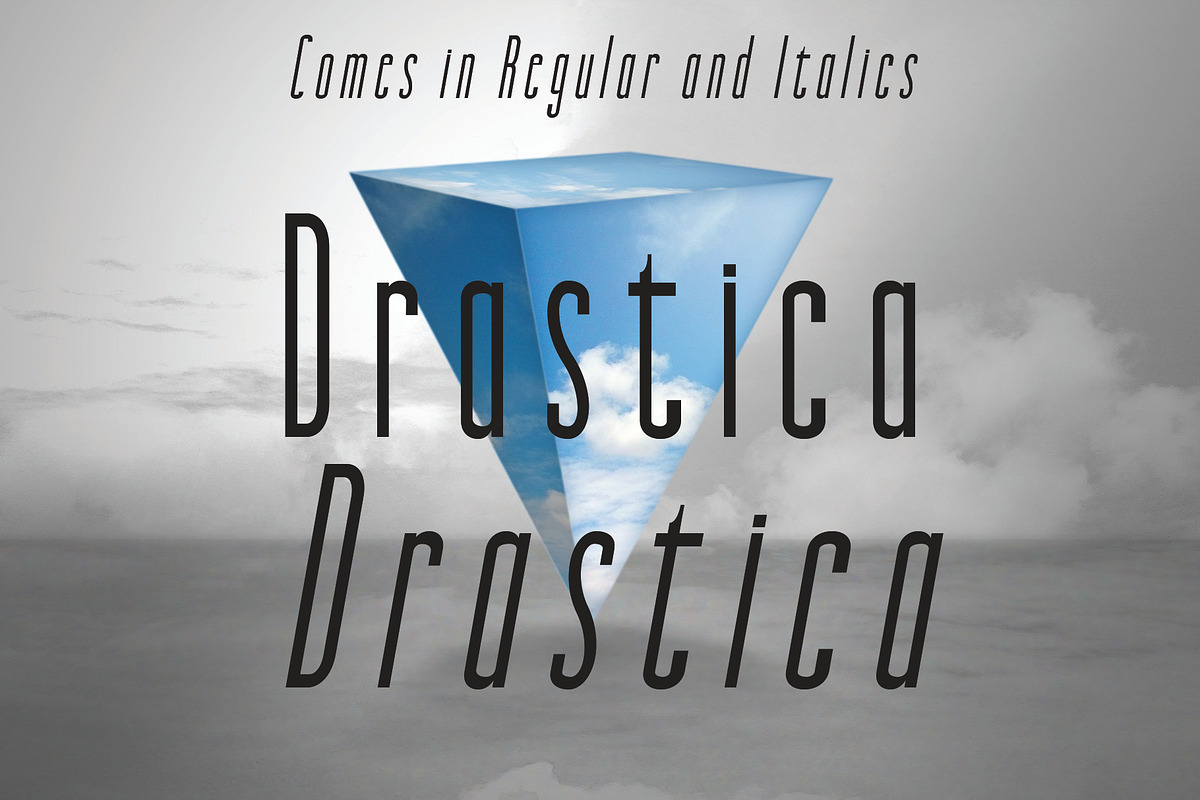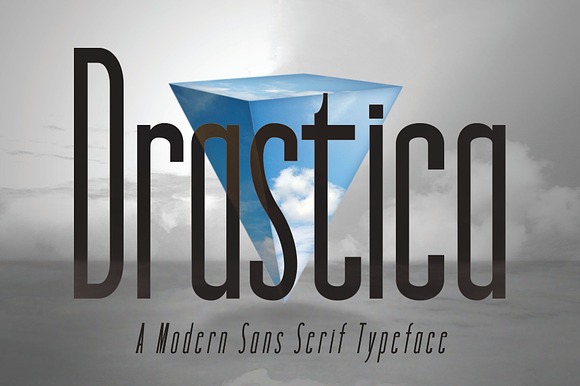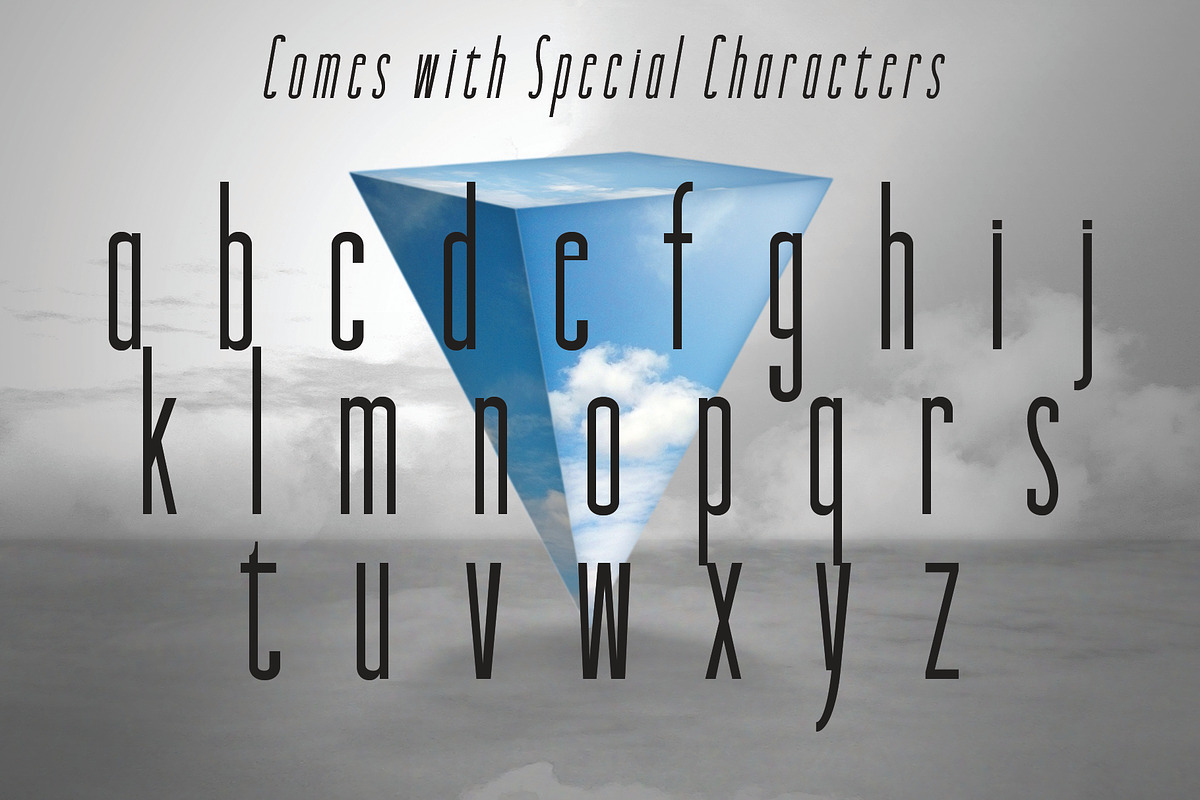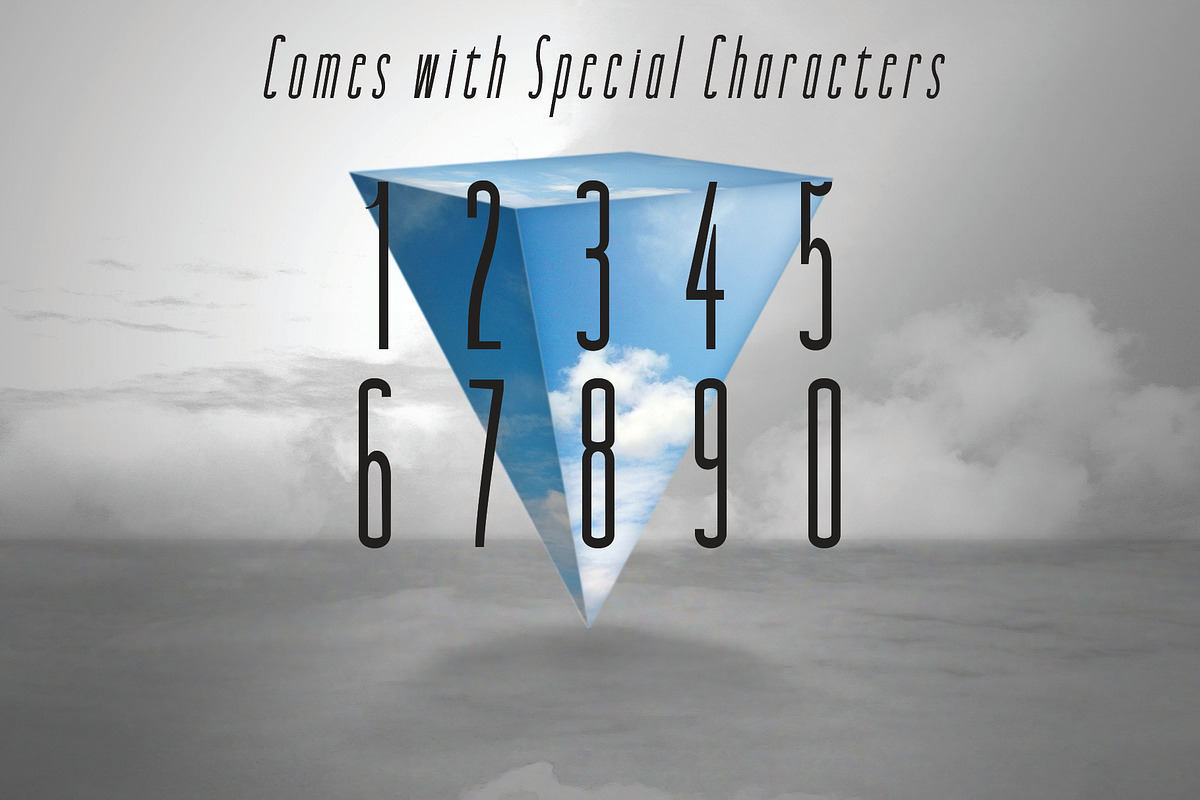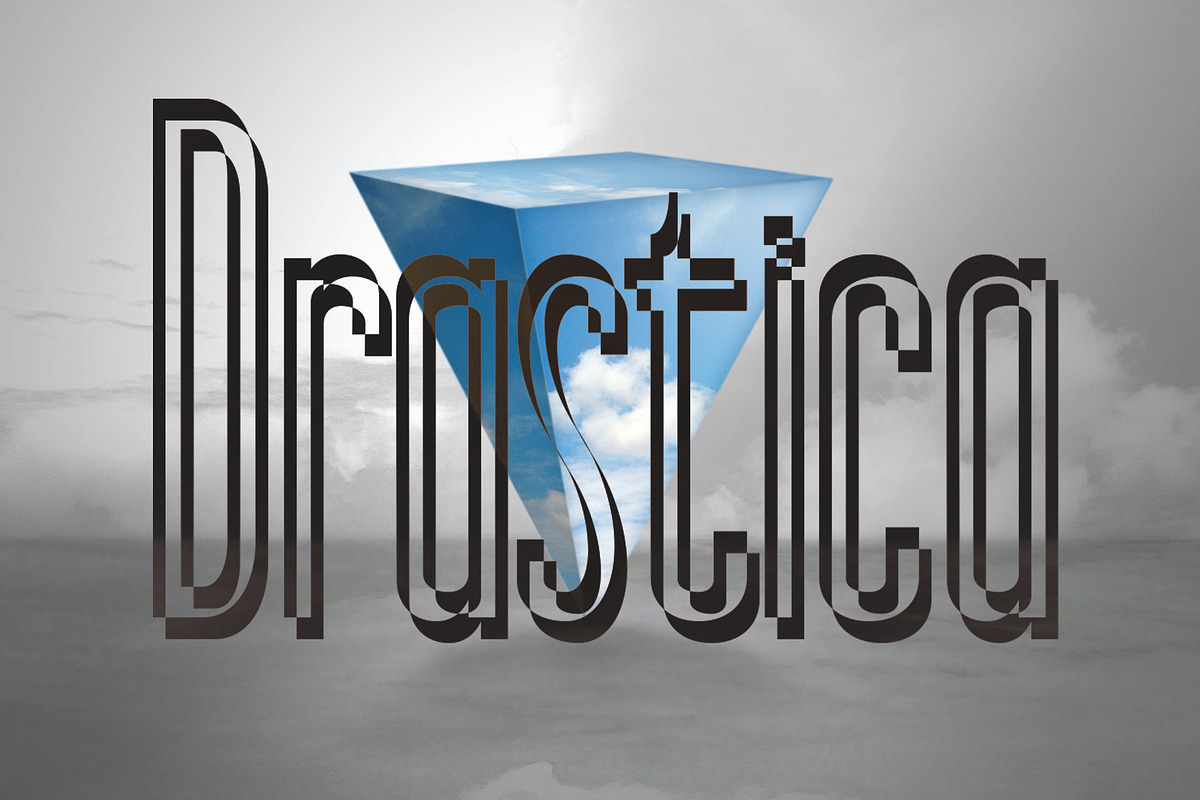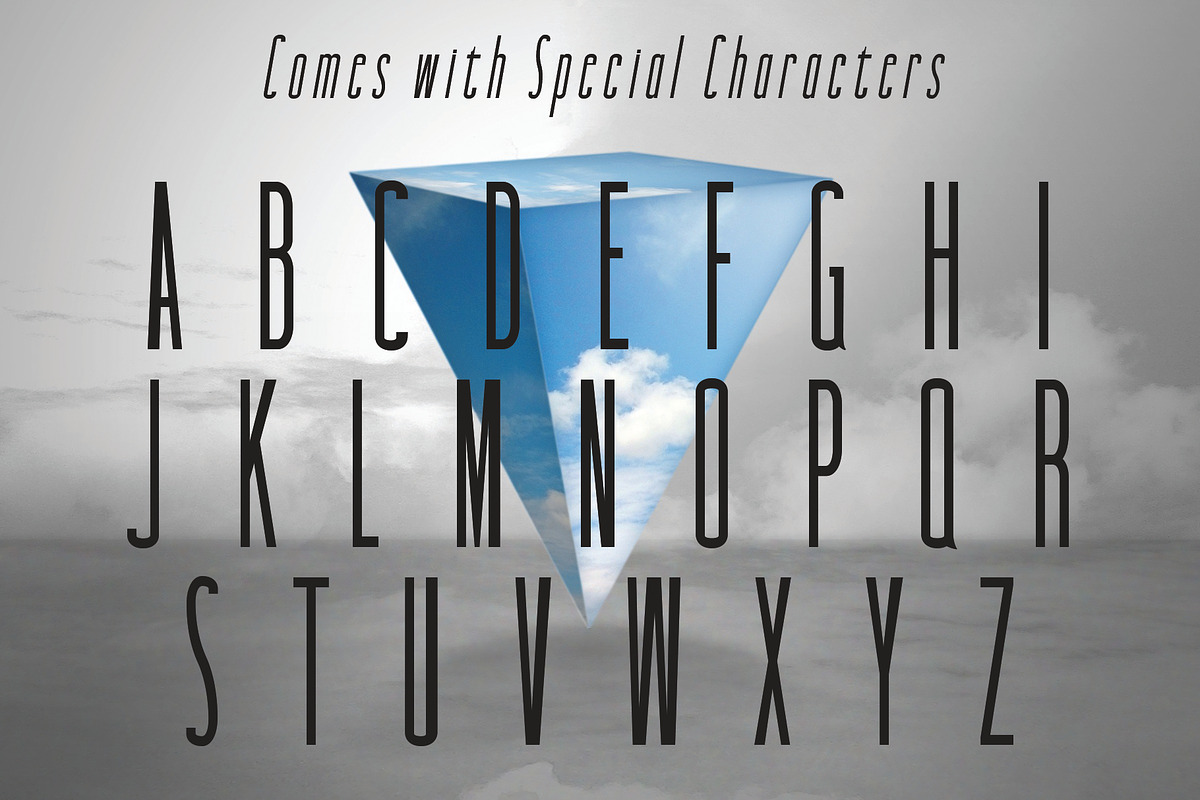
DRASTICA: A Modern Typeface
A simple yet elegant font. Its style makes it perfect for use in your design projects.
DRASTICA: A Modern Typeface by Dene Studios fits naturally into Branding, posters, packaging, typography.